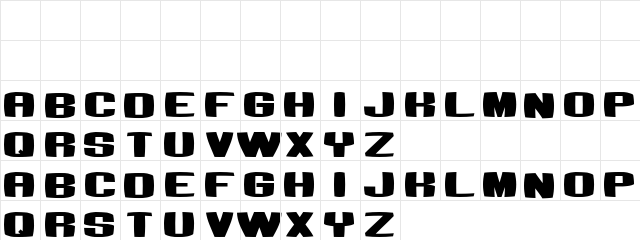
Floosa Read Regular
Design Context for Floosa Read Typeface
Floosa Read offers clean, dependable letterforms without strong stylistic allegiance, making it a practical choice for designers who need flexibility.
Pro Tip: Use Floosa Read in both headline and body roles to test its range before committing to a single application.